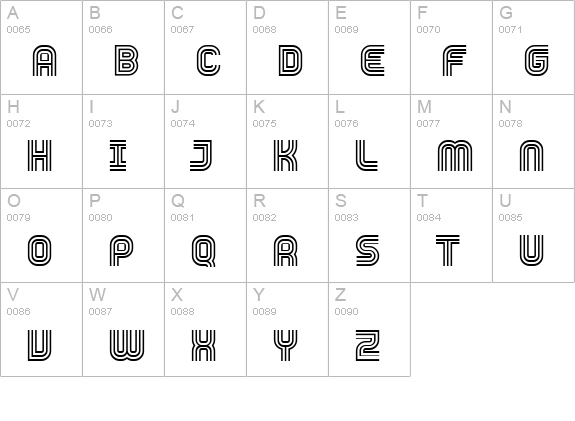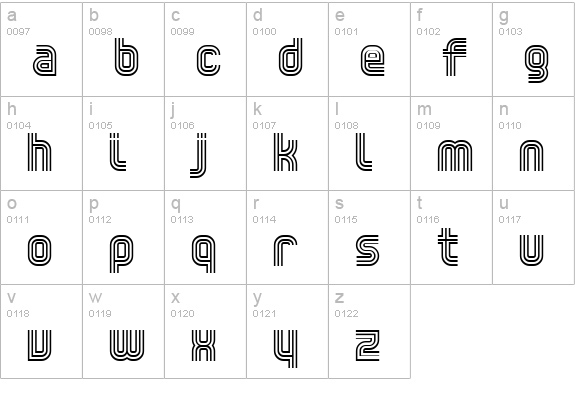
Introducing Trisect, a modern and dynamic font that is sure to make a bold statement in any design project. This versatile typeface combines sleek lines with geometric precision, resulting in a visually striking and contemporary look. Trisect is the perfect choice for those seeking a font that exudes professionalism and sophistication. Its clean and sharp edges give it a futuristic edge, making it ideal for branding, advertising, and editorial design. Whether used in headlines, logos, or body text, Trisect will captivate and engage viewers, leaving a lasting impression. But what sets Trisect apart from other fonts is not just its stunning appearance, but also the fact that it is free! That's right, you can download this exceptional font at absolutely no cost from FontsMarket.com. We believe that great design should be accessible to all, which is why we are thrilled to offer Trisect as a freely available resource. So why wait? Elevate your design projects with Trisect and experience the power of this remarkable font. Whether you're a professional designer or a creative enthusiast, Trisect is here to help you make a statement. Download it today from FontsMarket.com and unlock a world of endless possibilities.